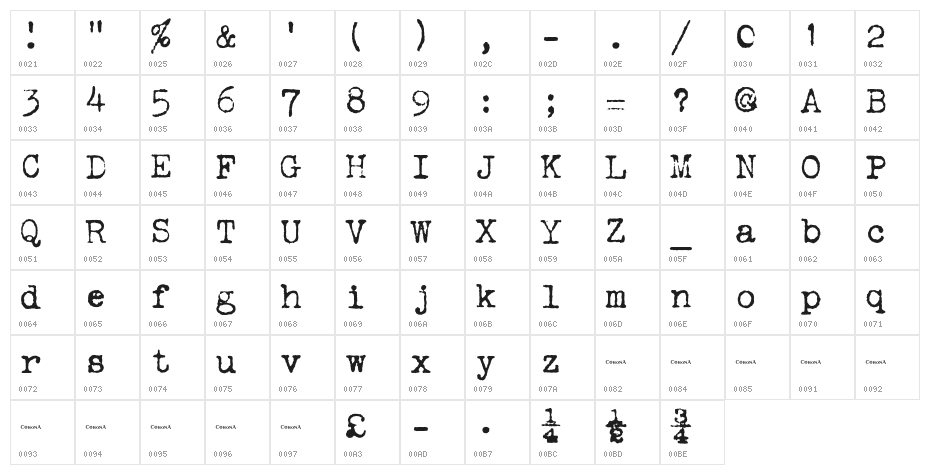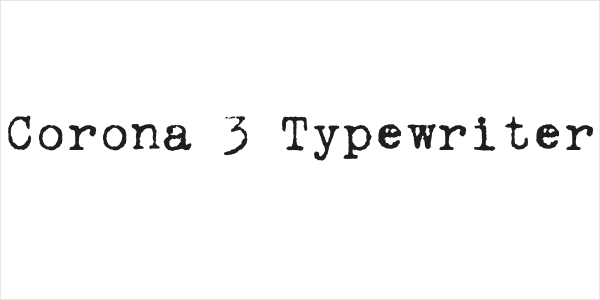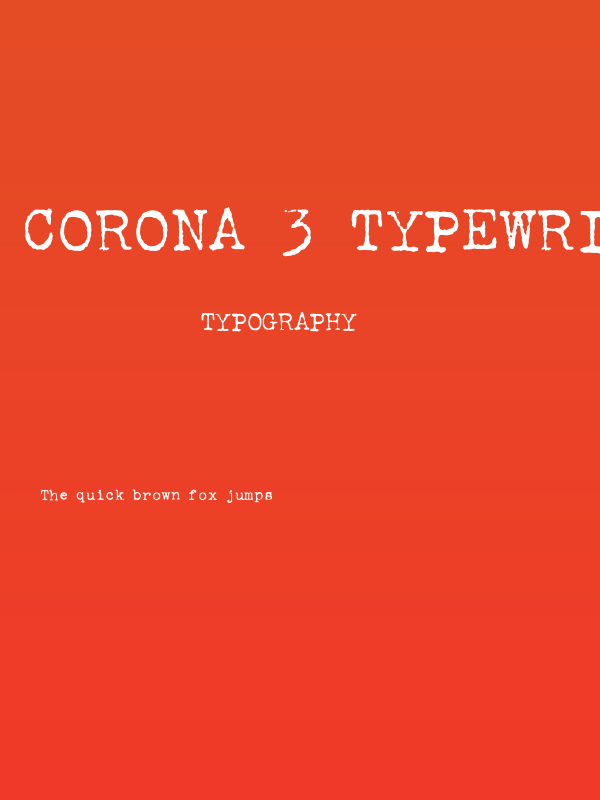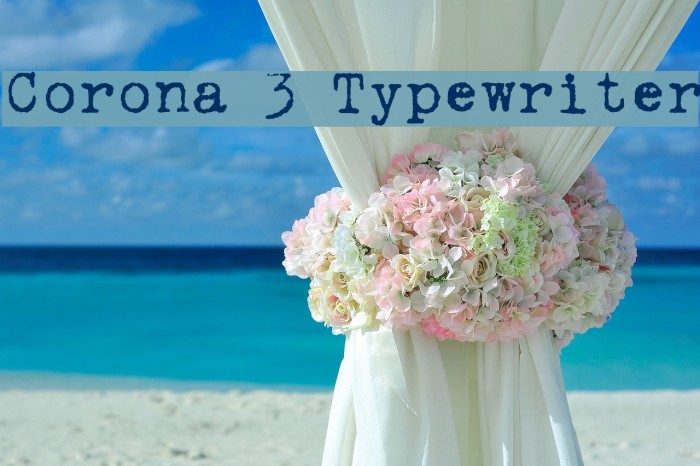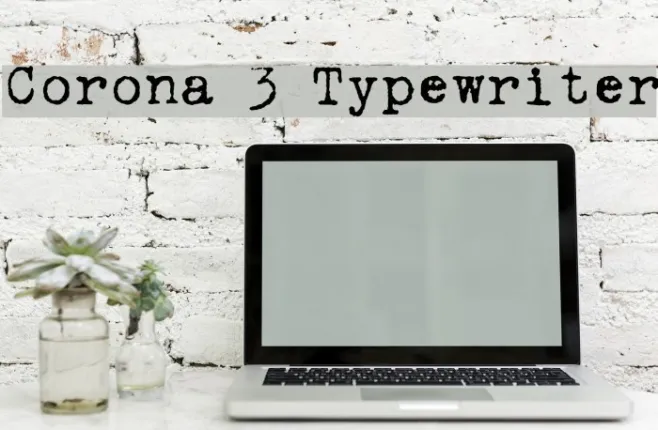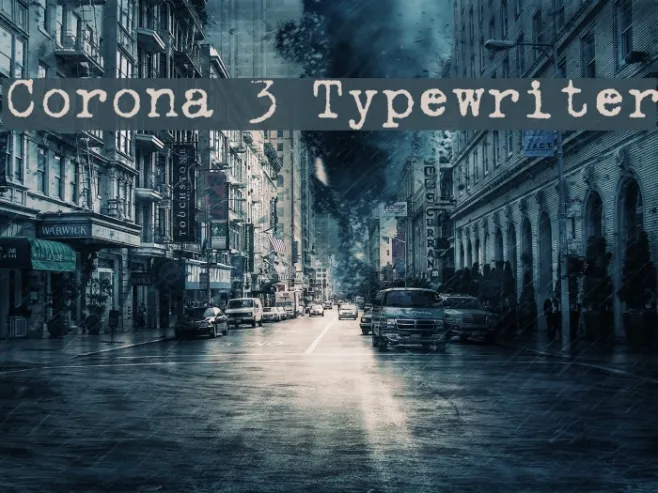
Corona 3 Typewriter Font
Corona 3 Typewriter Description
This typewriter-style font exudes a vintage charm with its slightly irregular and distressed appearance, reminiscent of old mechanical typewriters. The characters are monospaced, providing a uniform and consistent look across the text. Each letter has a distinct, bold presence, with subtle variations in ink distribution that add to its authentic, aged feel. The uppercase and lowercase letters maintain a classic typewriter aesthetic, while the numerals and special characters complement the overall style. This font is ideal for projects that require a retro or nostalgic touch, offering a unique blend of readability and character.
| Proposed Projects | Ideal for retro-themed designs, vintage posters, typewriter art, and nostalgic branding projects. |